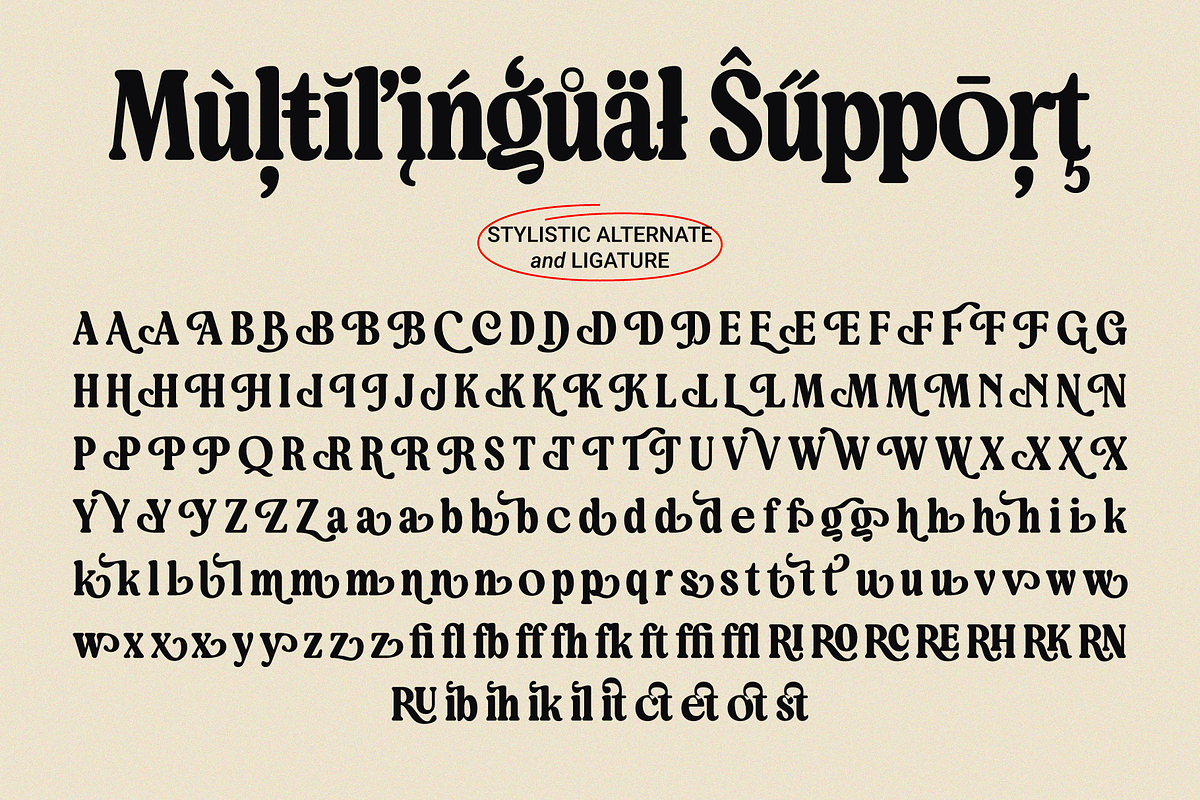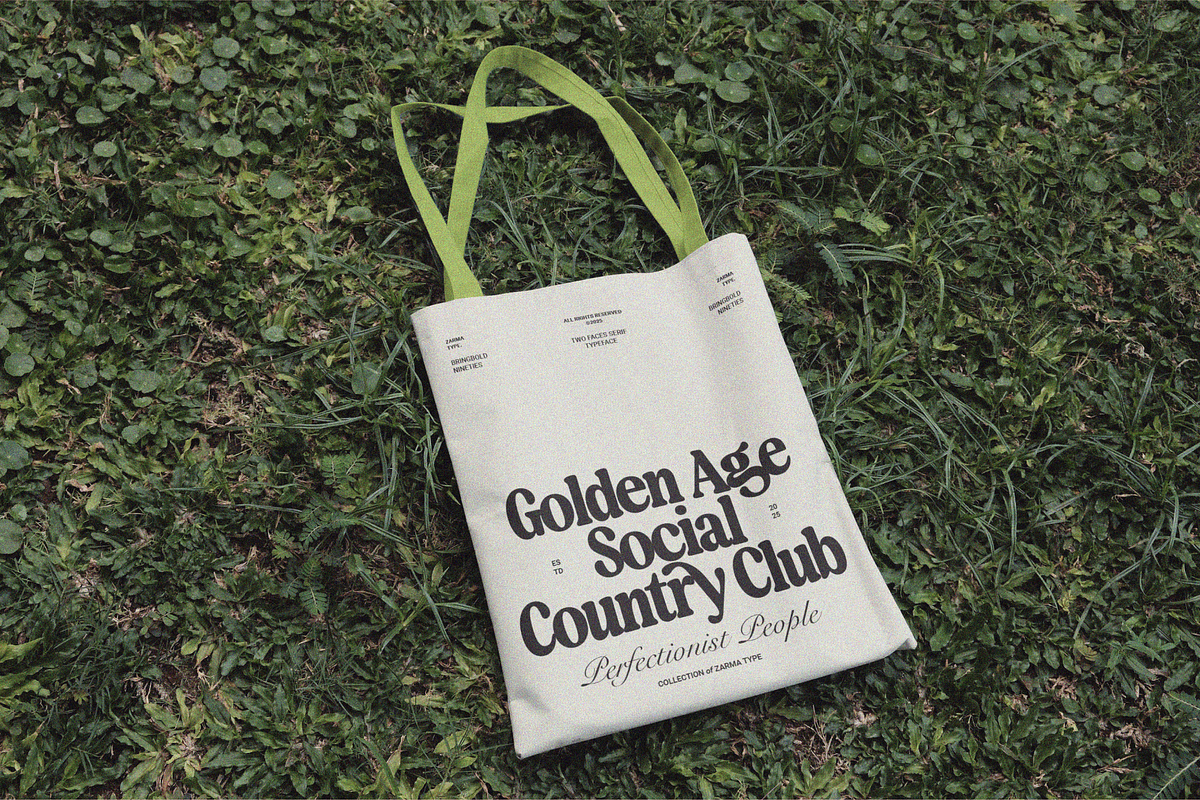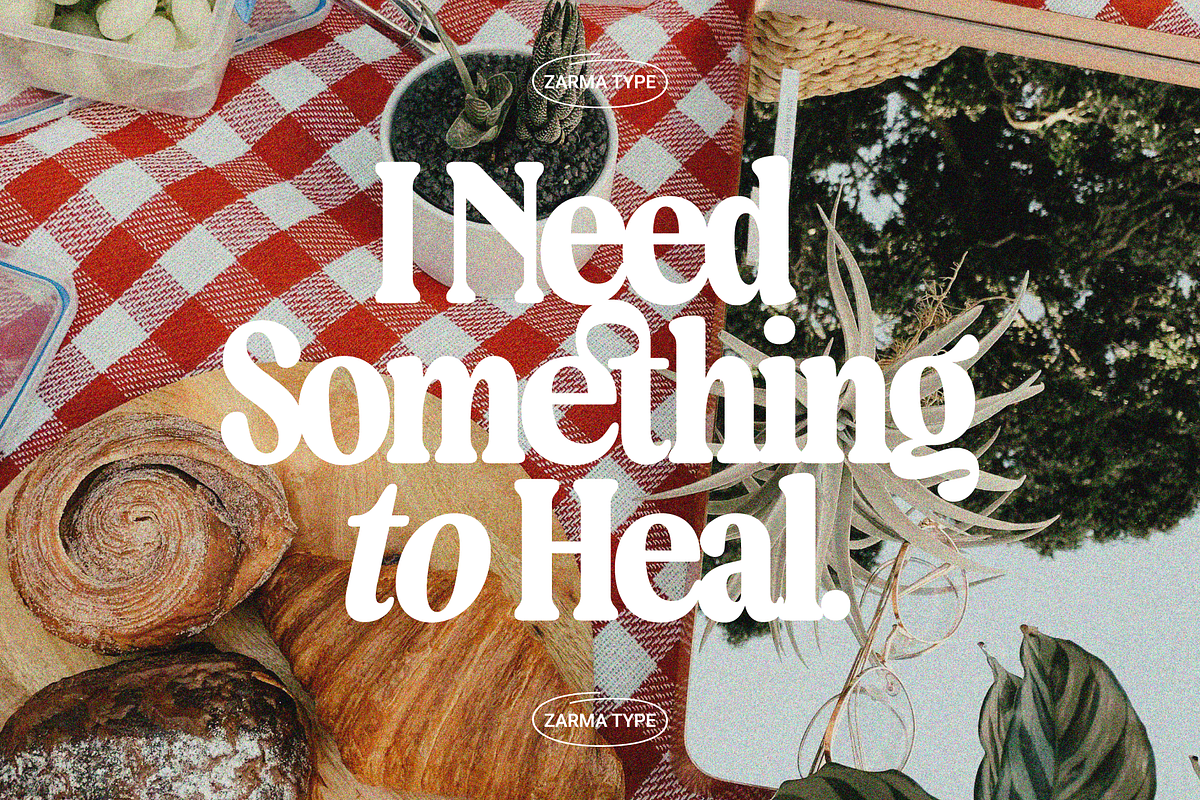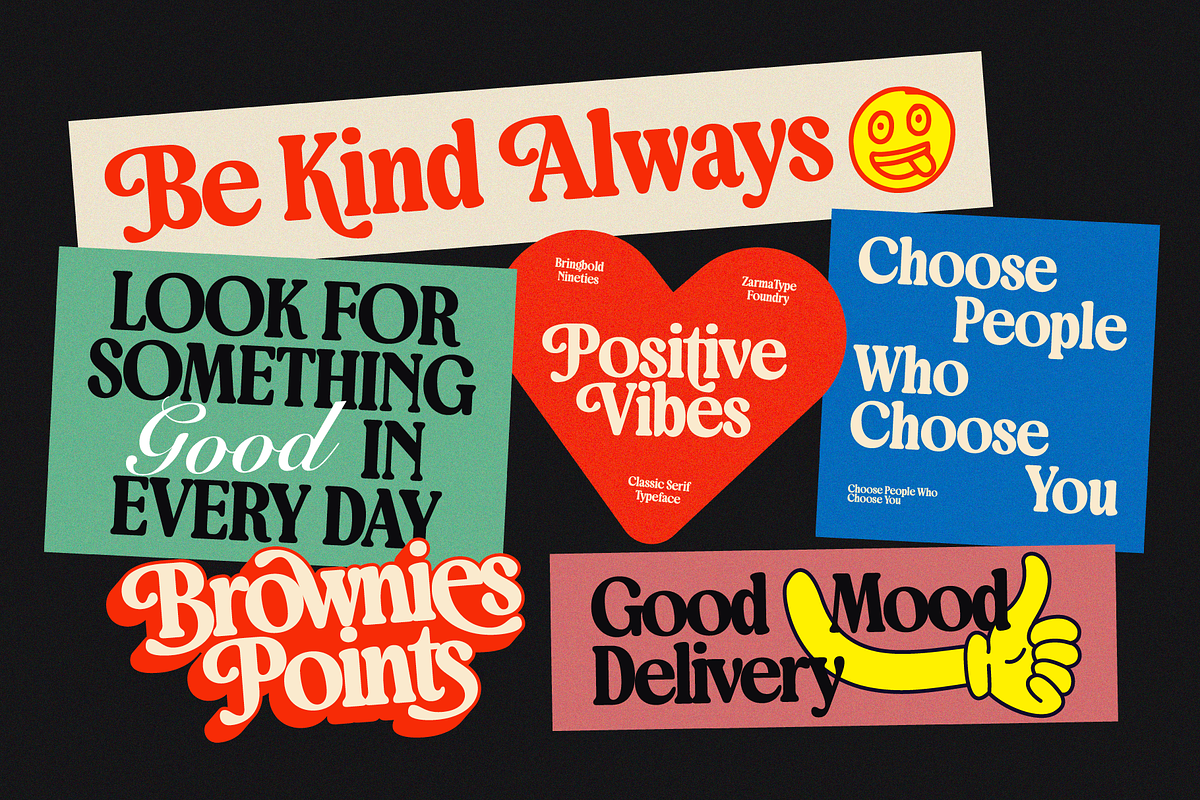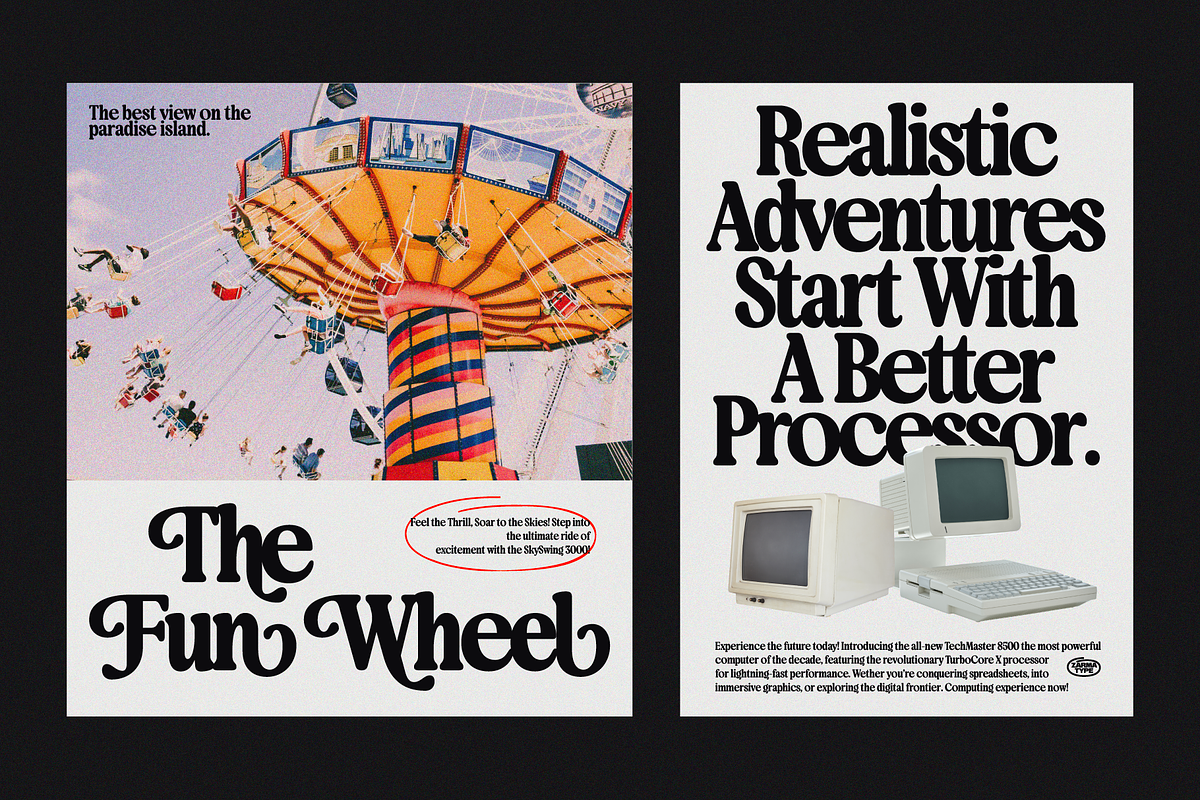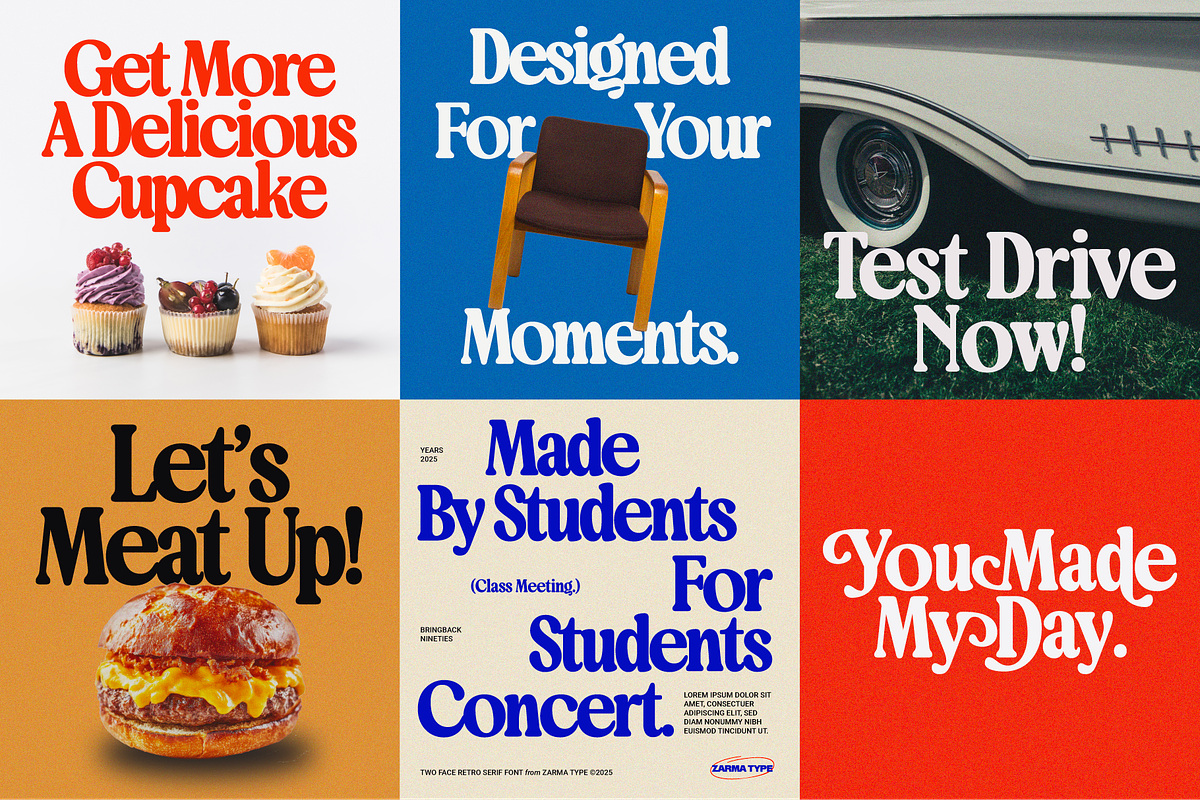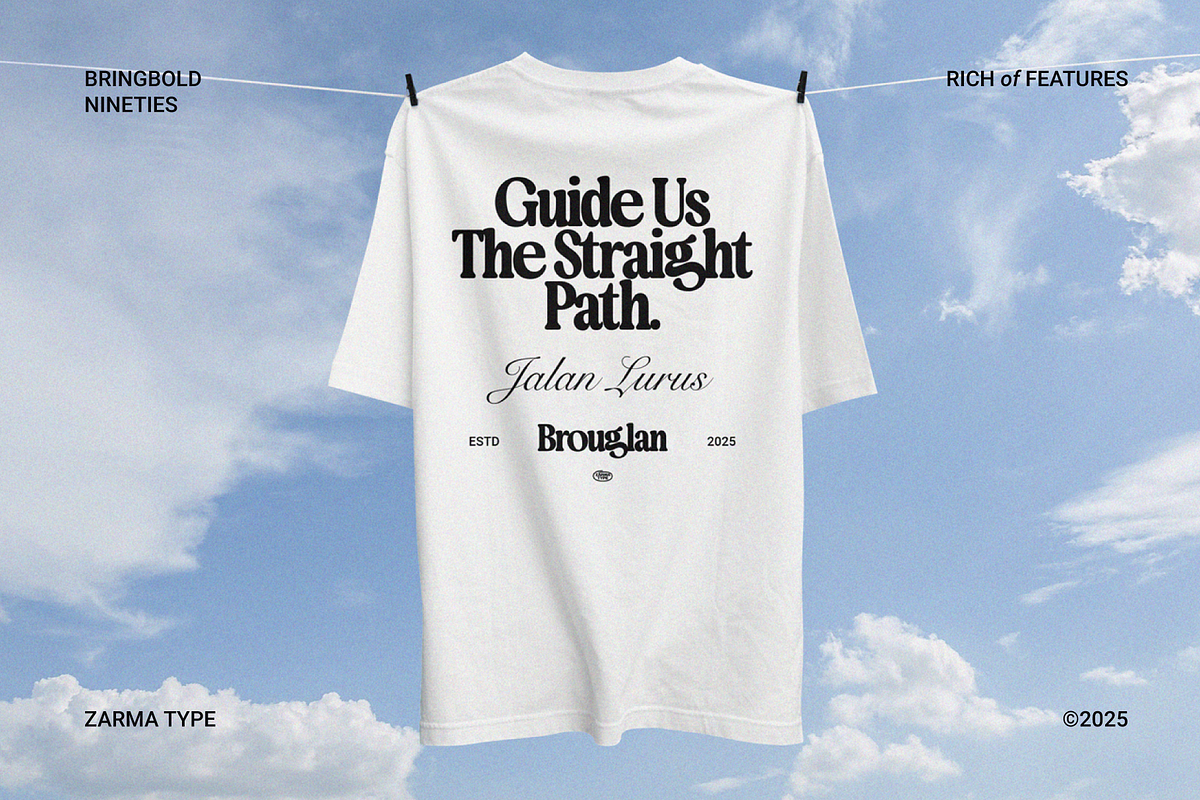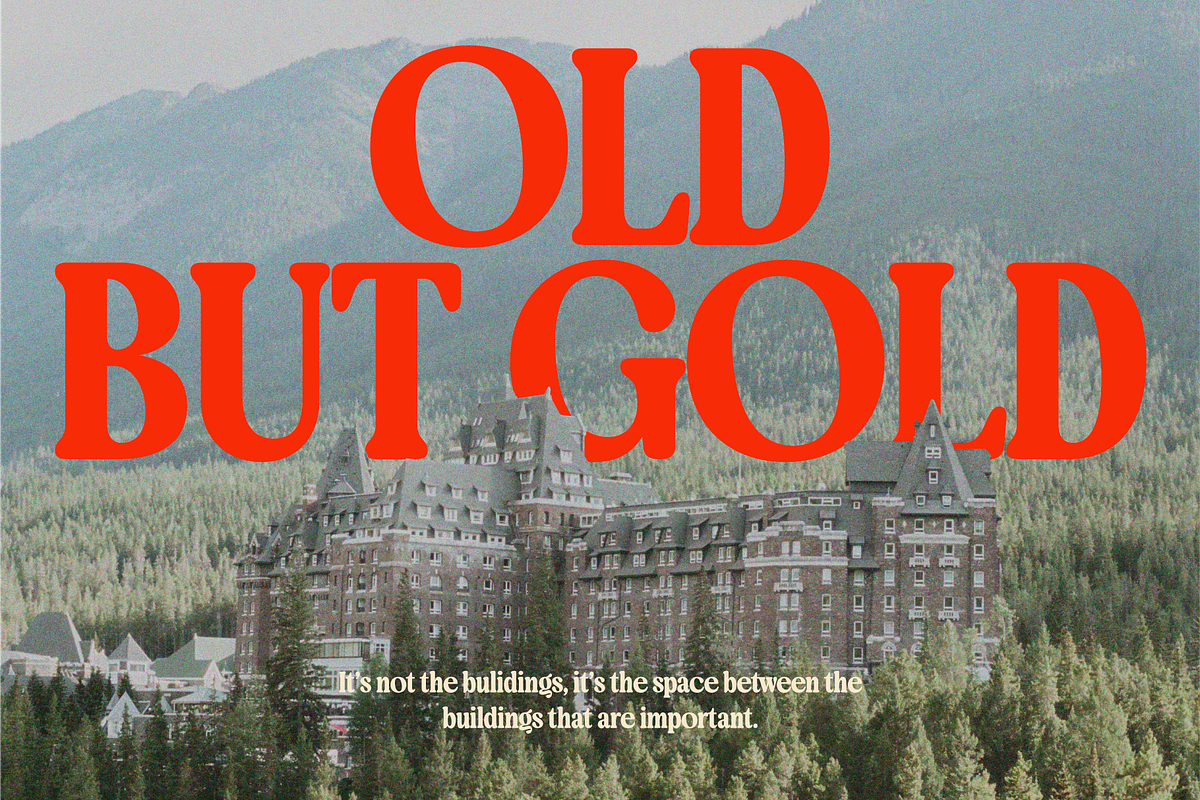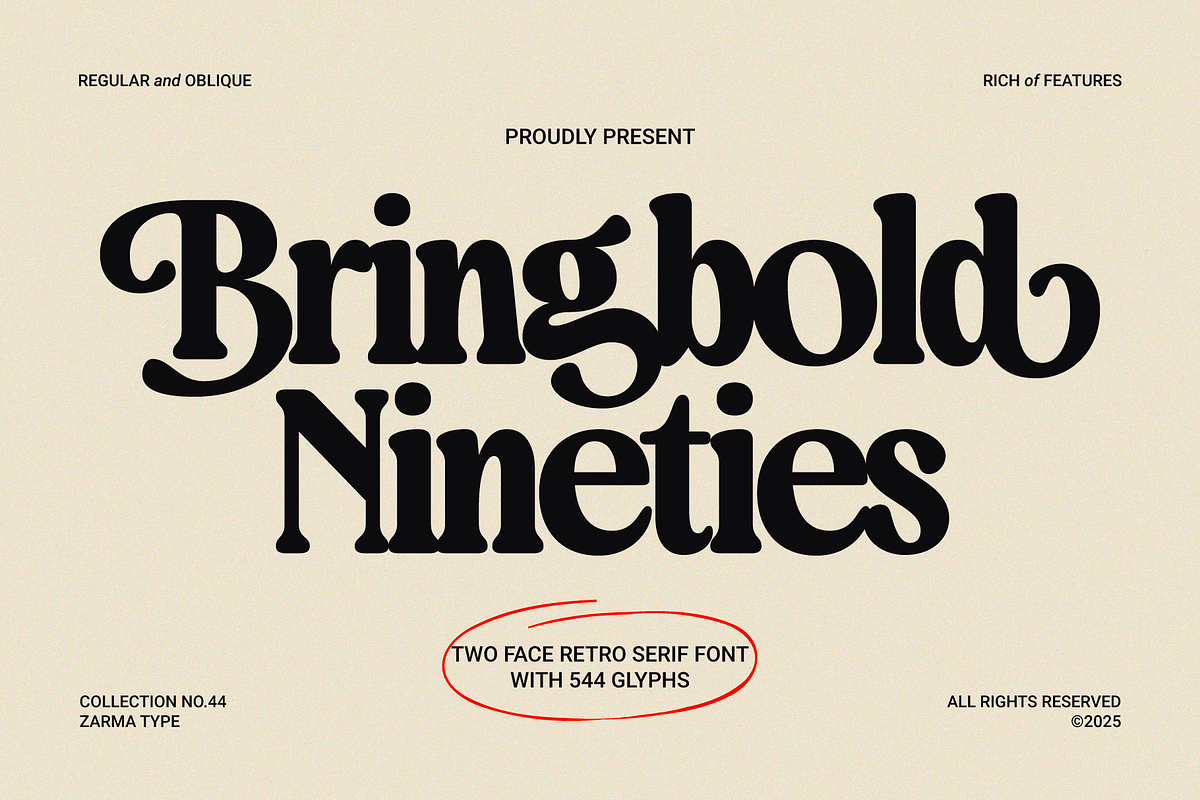
Bringbold Nineties - Serif Font
Bringbold Nineties is a classic serif font that perfectly captures the essence of 90s retro design with a fresh modern twist. With its strong bold characteristics and crisp serif details, this font offers the perfect balance between vintage nostalgia and contemporary readability. The extensive collection of OpenType features, including numerous stylistic alternates and carefully crafted ligatures, allows for endless creative possibilities while maintaining the authentic retro feel.
Meticulously crafted with attention to detail, each character possesses a strong personality while maintaining visual harmony when used together. The font comes in two variations - Regular and Slanted - giving designers maximum flexibility to create eye-catching work. With its comprehensive set of OpenType features, including decorative swashes, contextual alternates, and custom ligatures, Bringbold Nineties empowers designers to create unique and dynamic typographic compositions that stand out in any application while maintaining a timeless classic aesthetic.
Retro Branding & Logo Design
Vintage-Inspired Packaging
Editorial Headers & Titles
Album Cover Art
Poster & Advertisement Design
Restaurant & Food Branding
Fashion Labels & Tags
Two Style Variations (Regular & Slanted)
Standard & Discretionary Ligatures